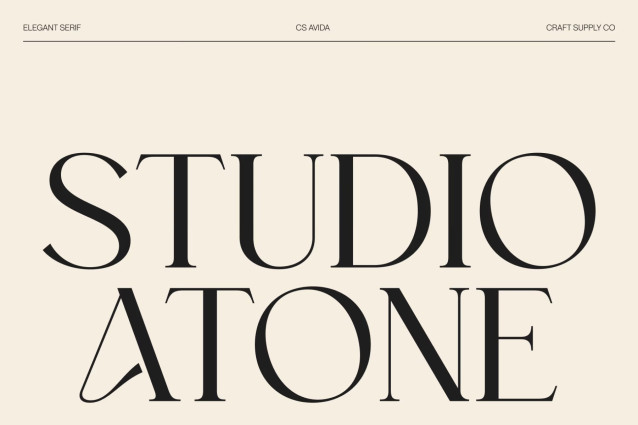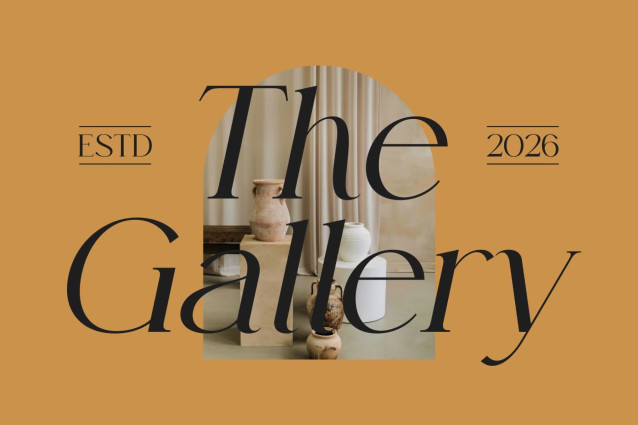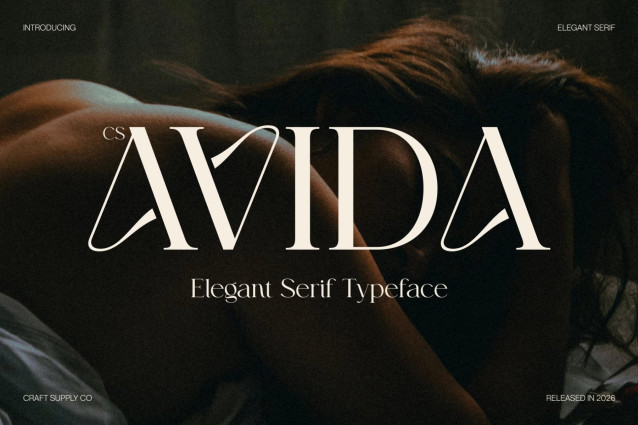
CS Avida – Elegant Serif Font
CS Avida – Elegant Serif with Refined Modern Luxury
Elegant Serif with Timeless Sophistication
This is an elegant serif font designed to embody refined style and understated luxury. Its graceful letterforms and balanced proportions create a timeless presence that feels polished and sophisticated. Built to elevate modern typography, this typeface delivers elegance with clarity and confidence.
Fresh Modern Design with Classic Roots
Combining classic serif foundations with a fresh contemporary approach, this font offers clean shapes and smooth curves that feel modern and stylish. The refined detailing enhances readability while maintaining a premium aesthetic, making the font both functional and visually captivating.
Luxurious Tone with Versatile Character
This font communicates luxury through subtle refinement rather than excessive ornamentation. Its versatile personality adapts effortlessly to minimalist layouts as well as more expressive compositions, providing a high-end typographic voice across a wide range of design projects.